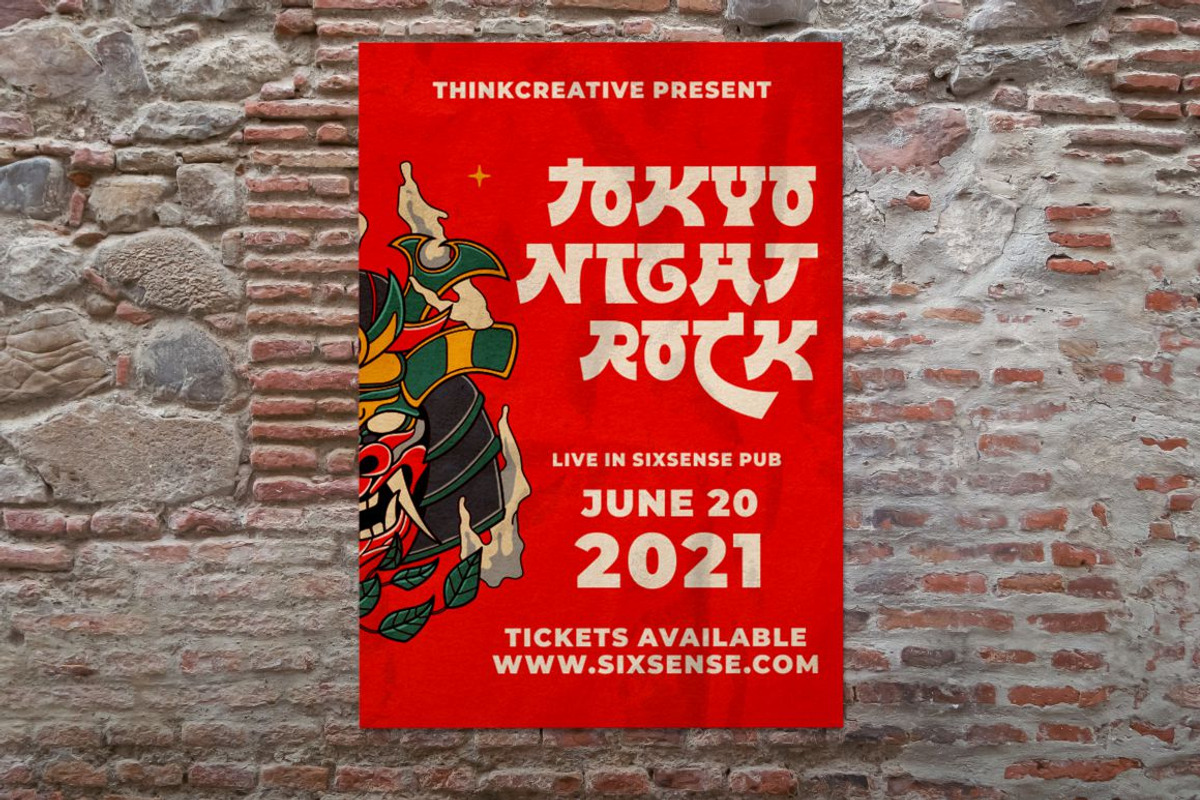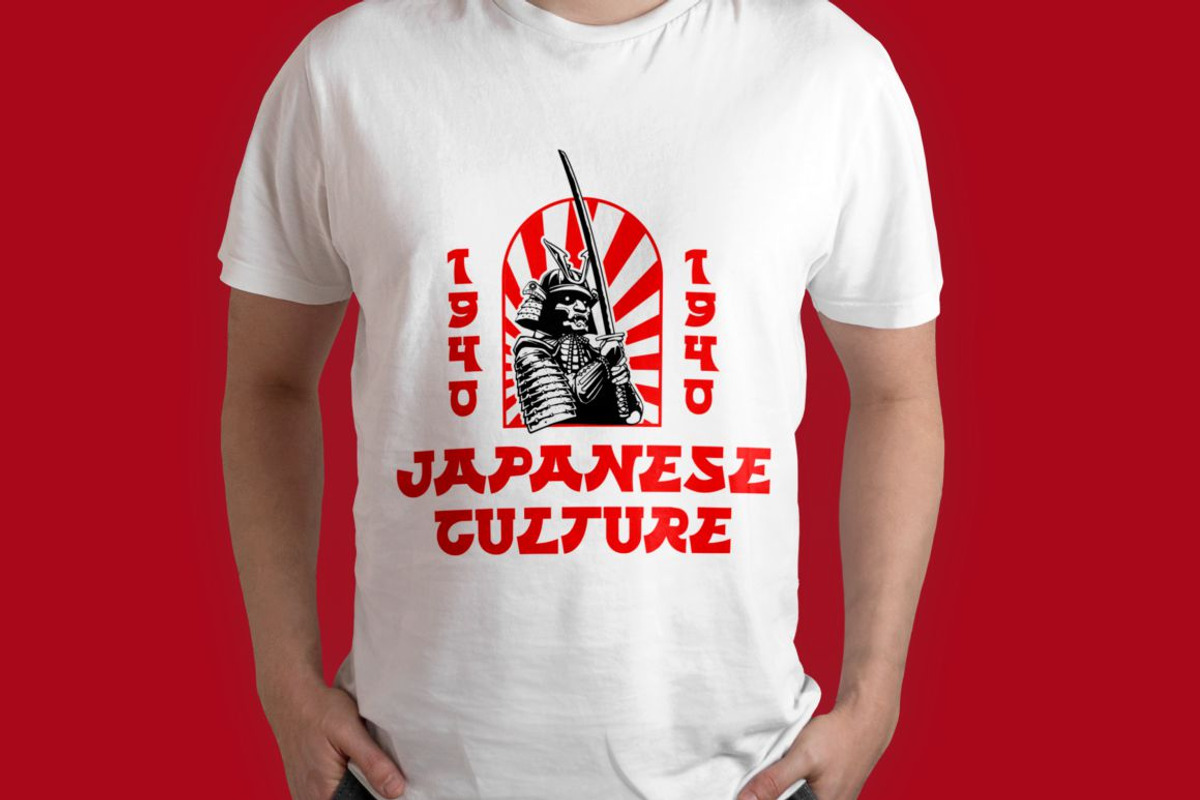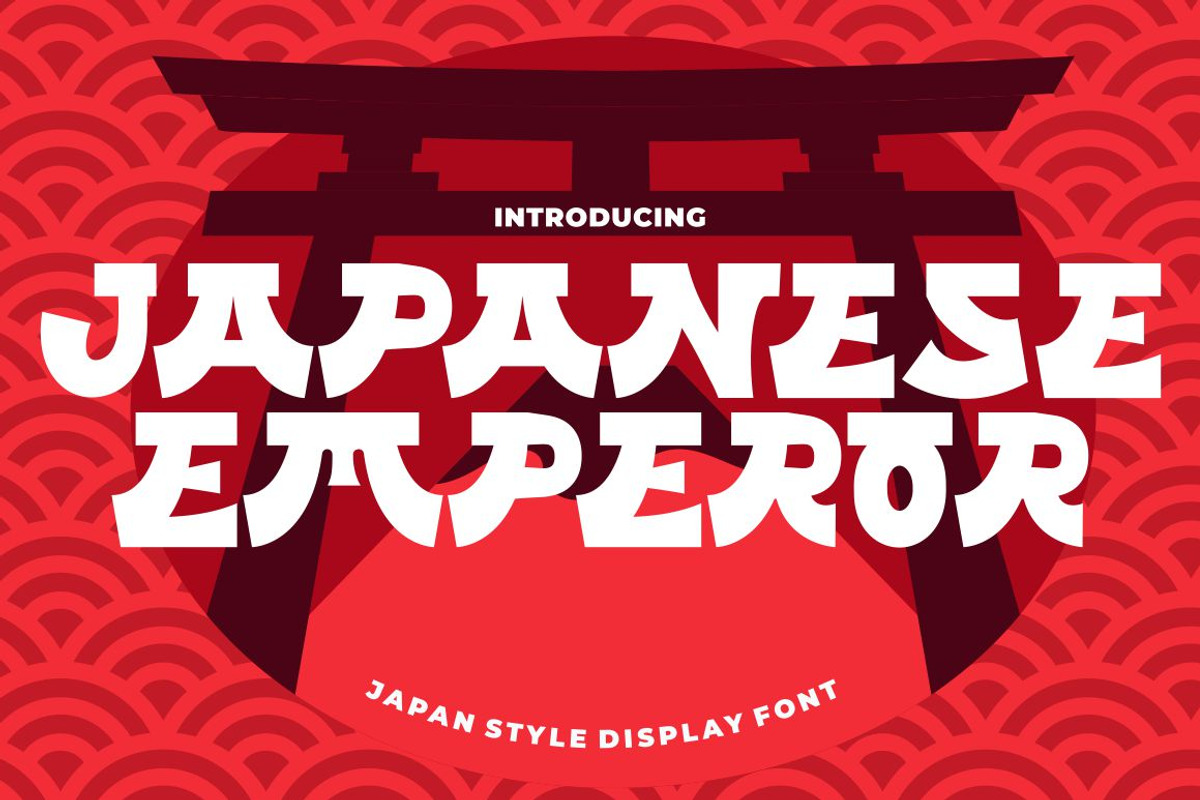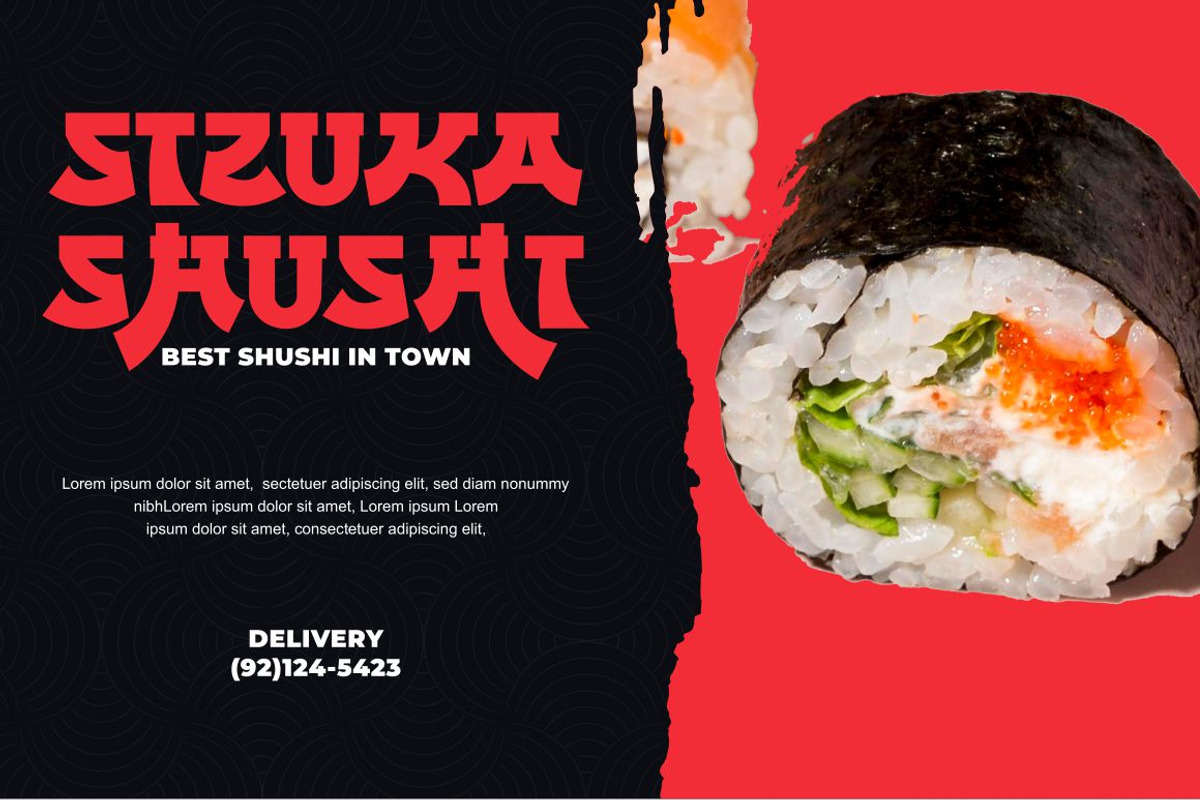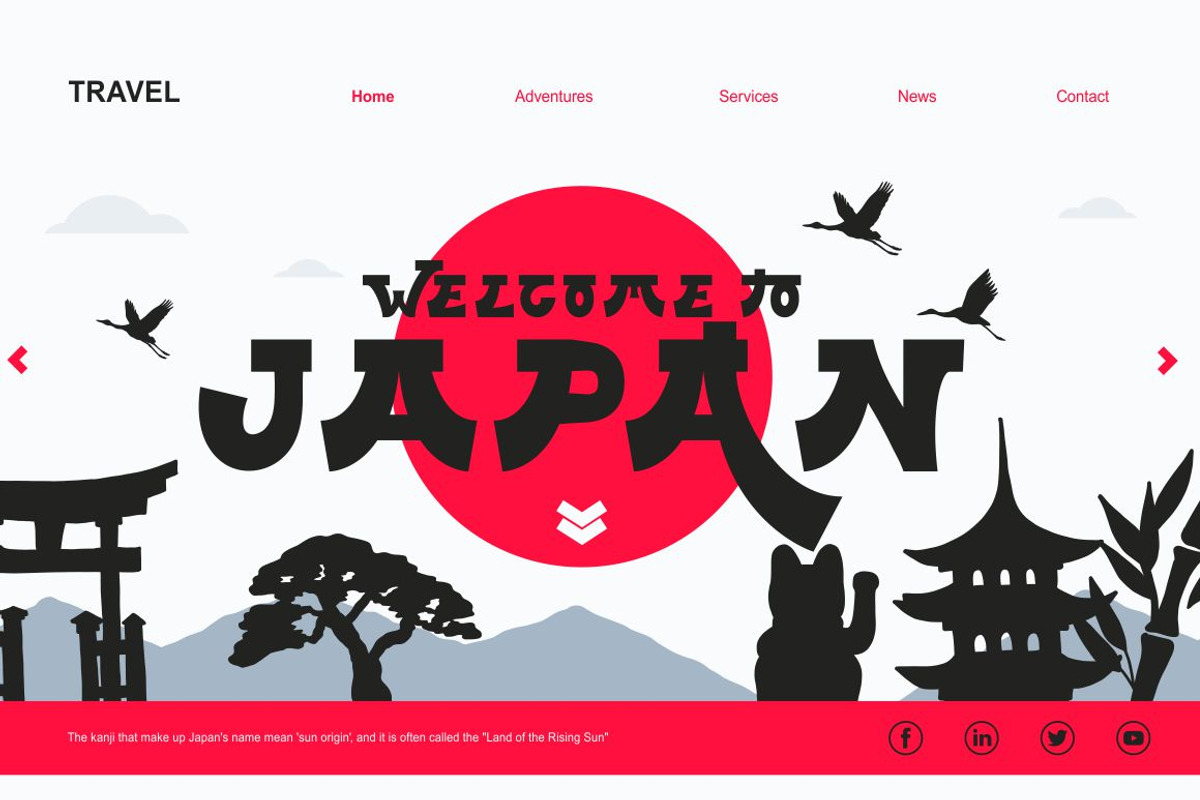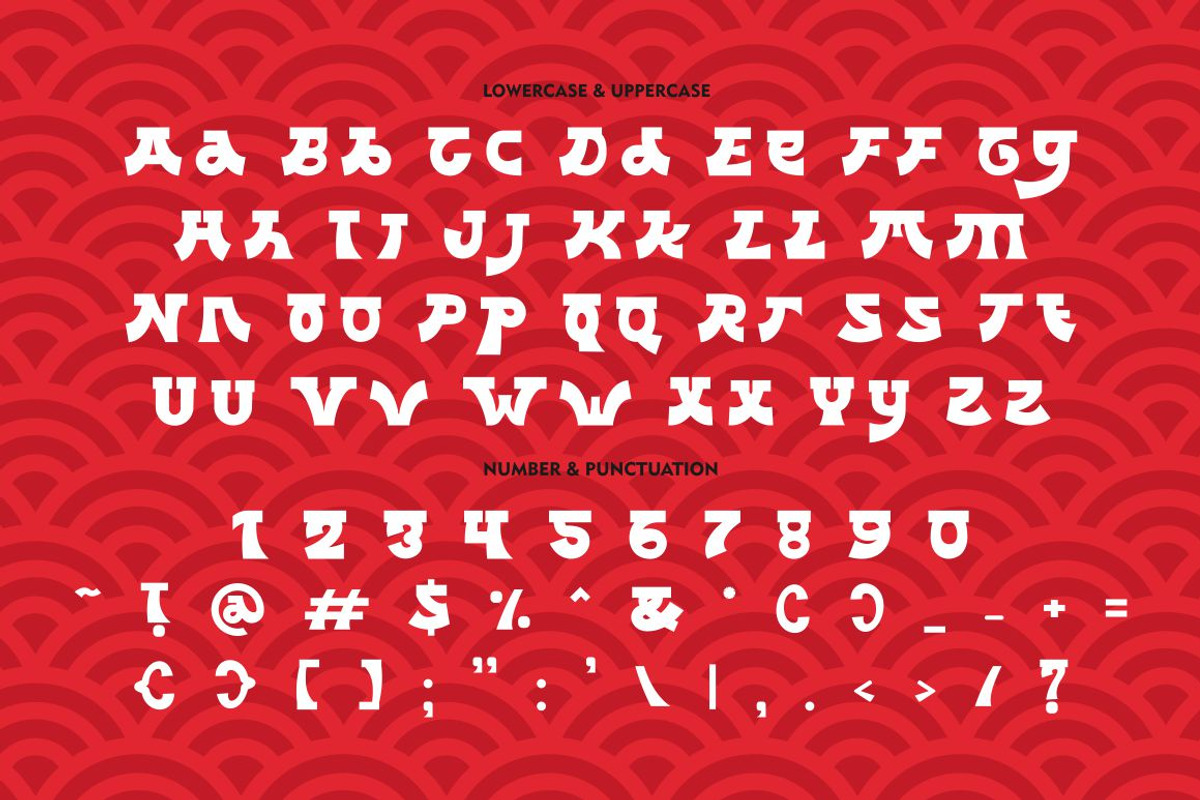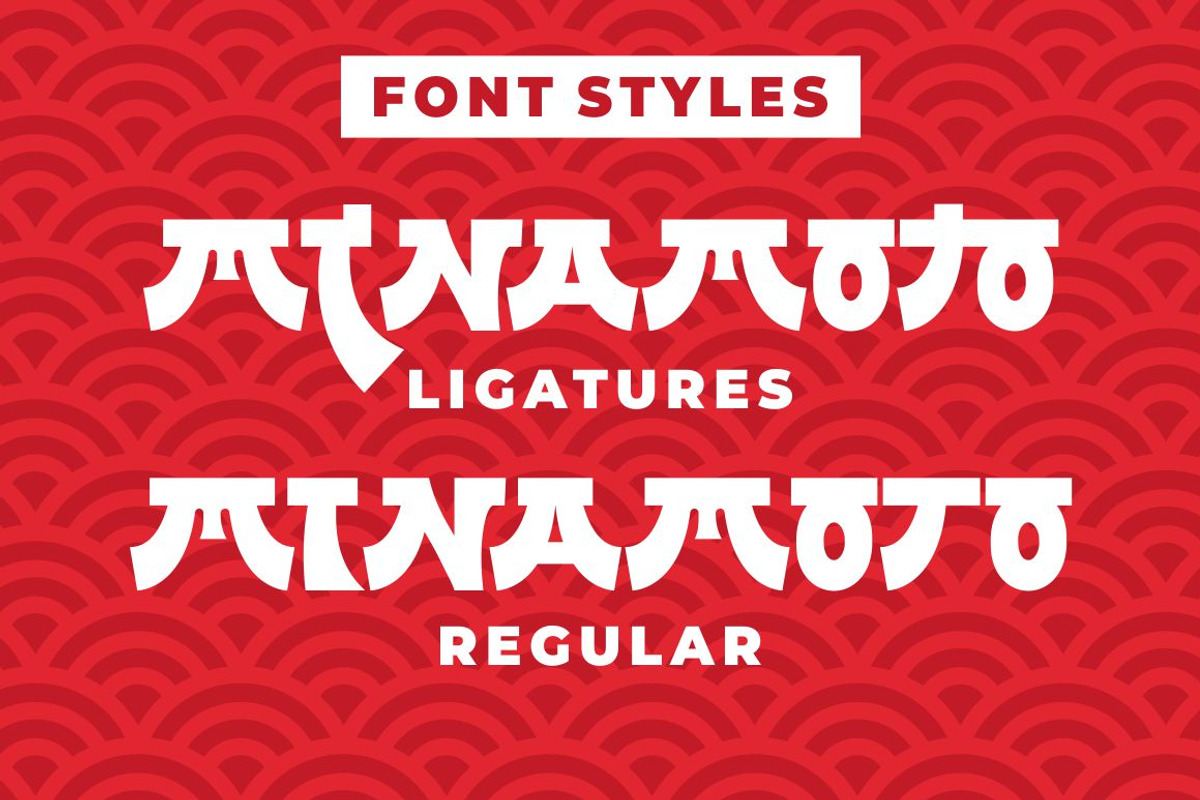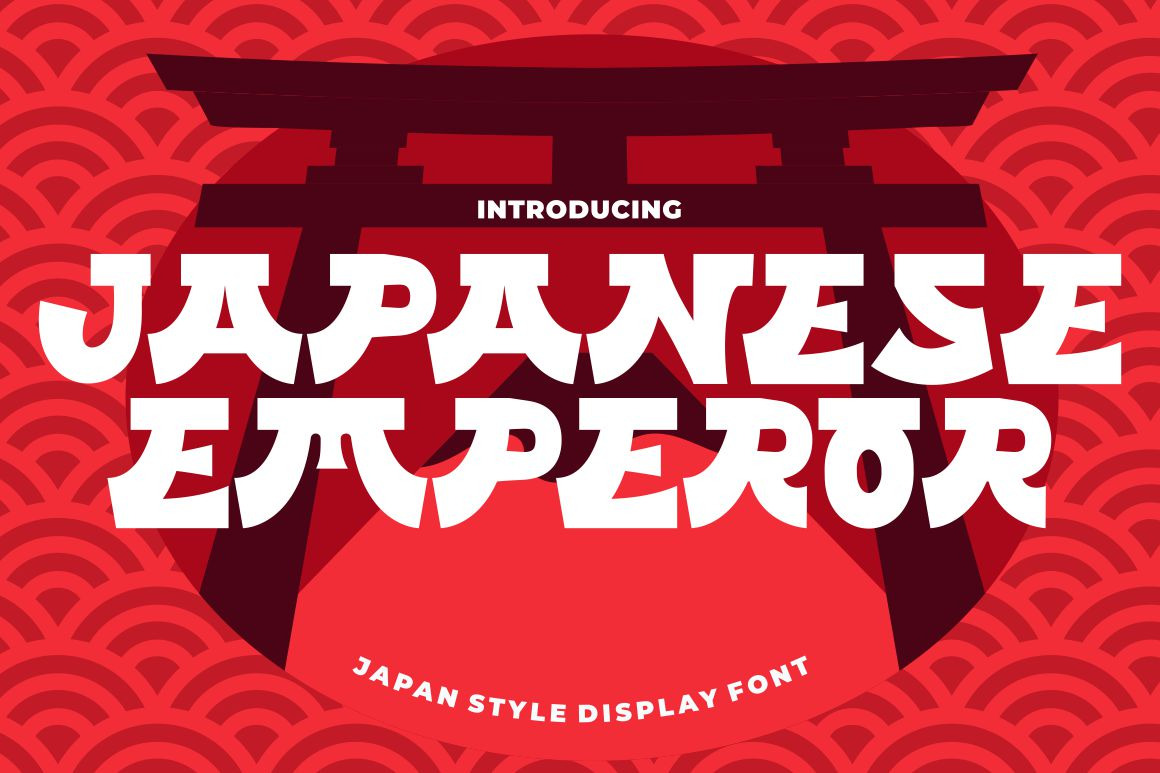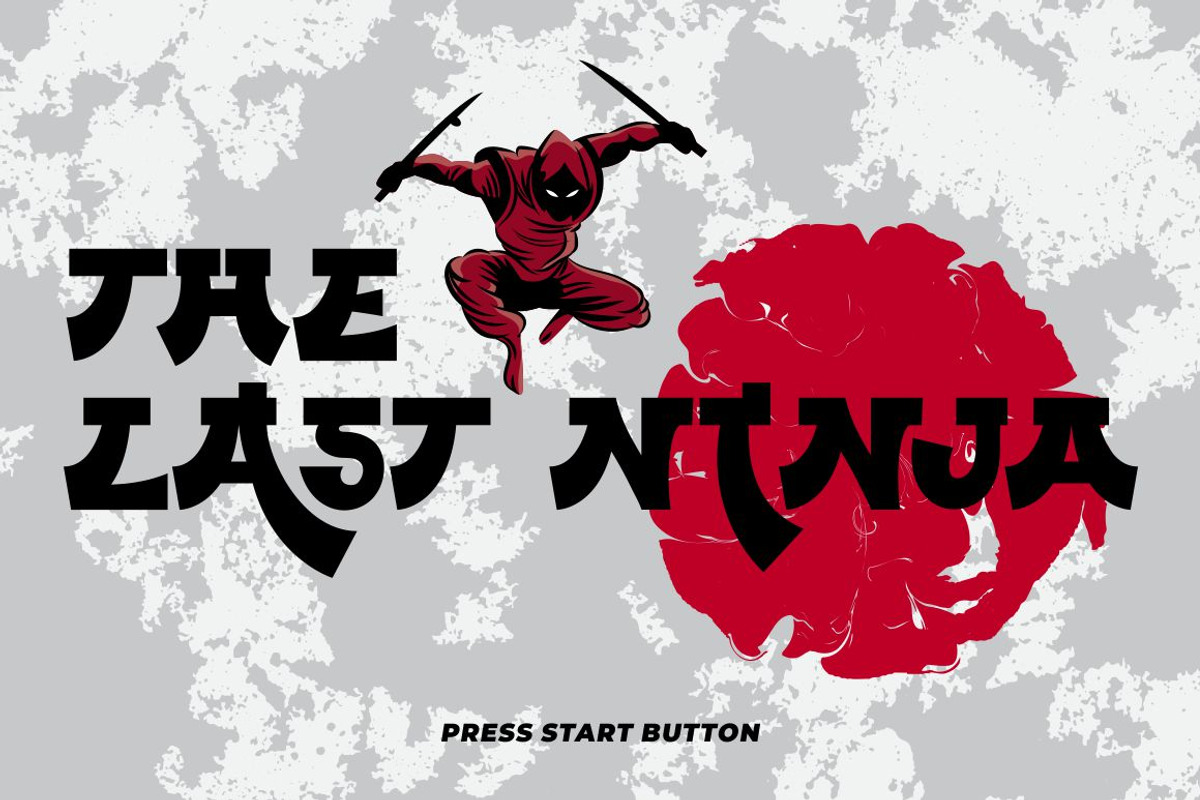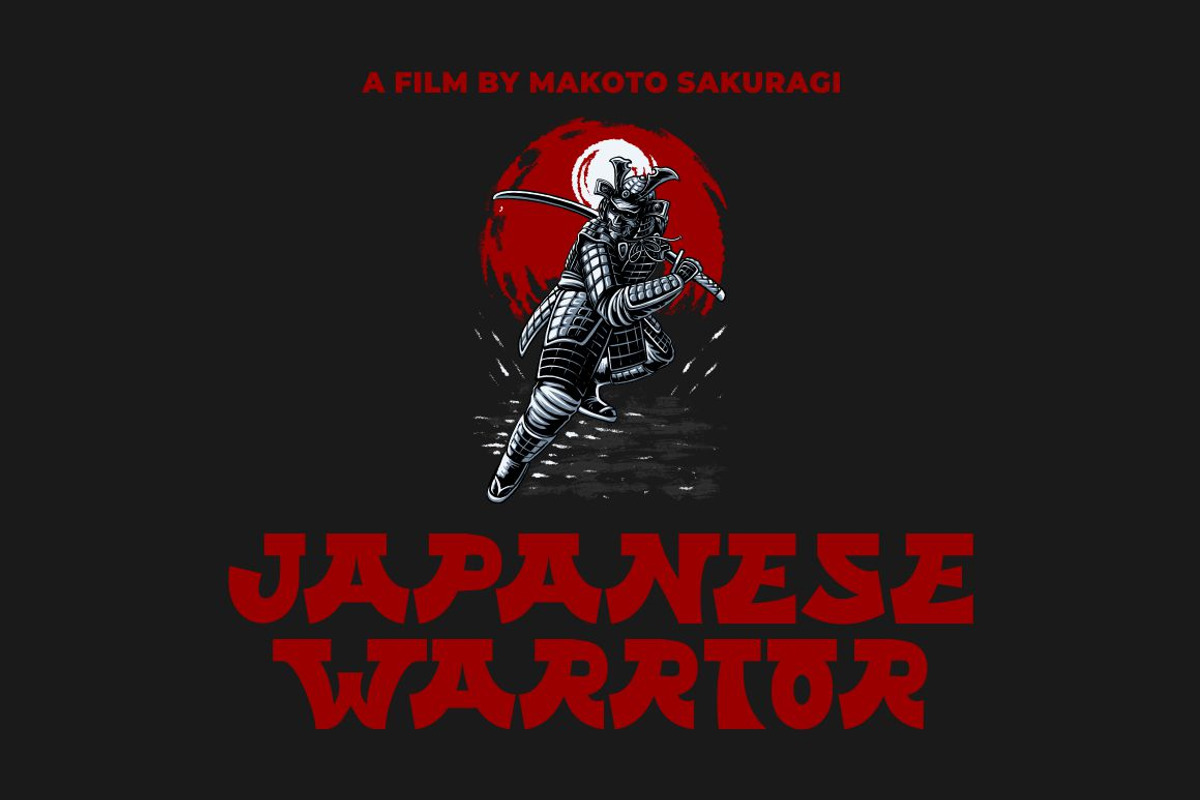
Japanese Emperor - Japan Style Font
Japanese Emperor - Japan Style Display Font
Japanese Emperor is a font inspired Japanese style and the only fonts with shapes and styles that exactly resemble the Japanese characters & this font is easy to read and can be applied to all media and all can use this font without exception
This font is suitable for your projects such as logos, wedding invitations, branding, landing pages, apparel, posters, headlines, greeting cards, invitation cards, social media, crafting, quote and more.
Comes with feature :
- Opentype (Alternates And Ligatures)
- Number, Punctuation And Symbols
- Multilanguage Support.